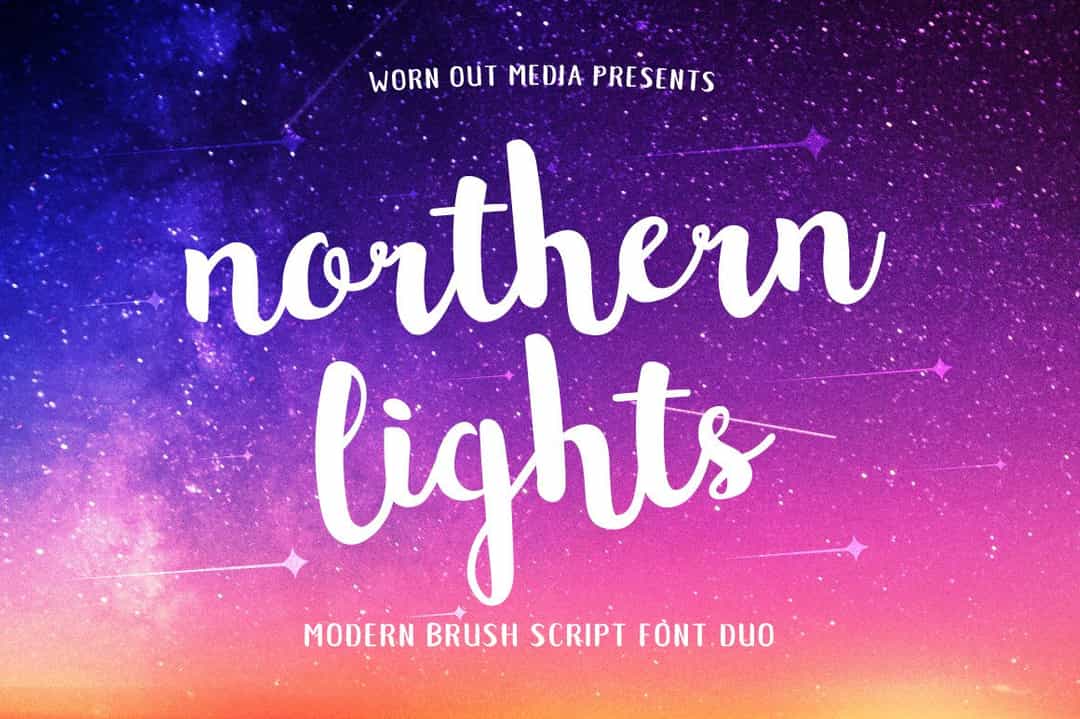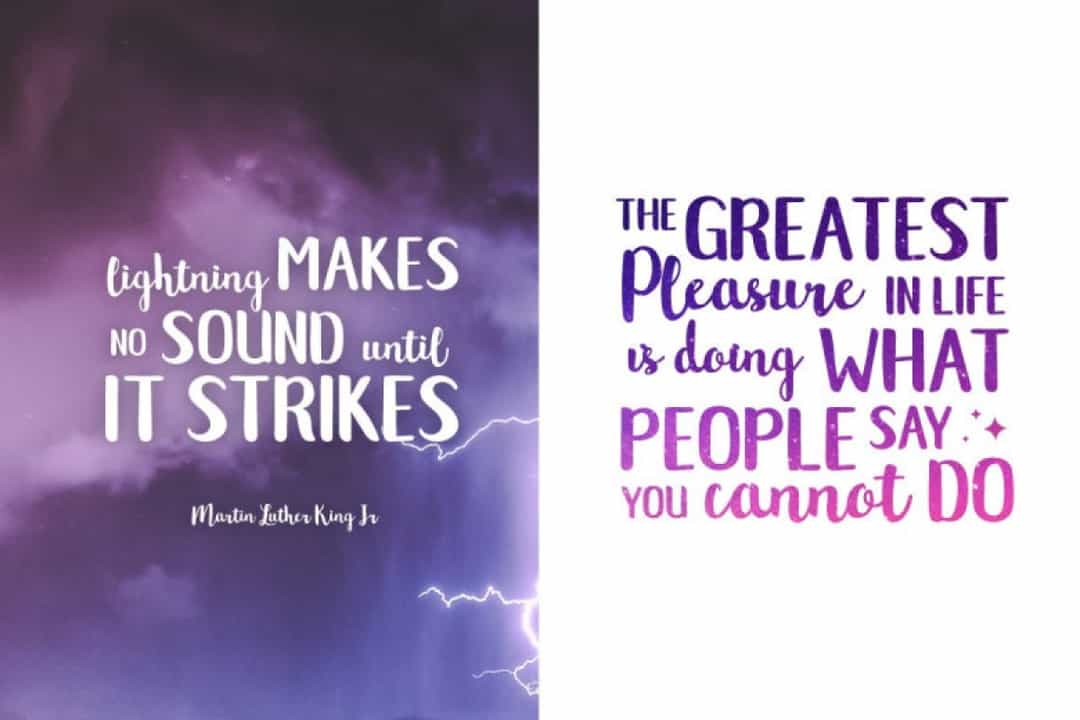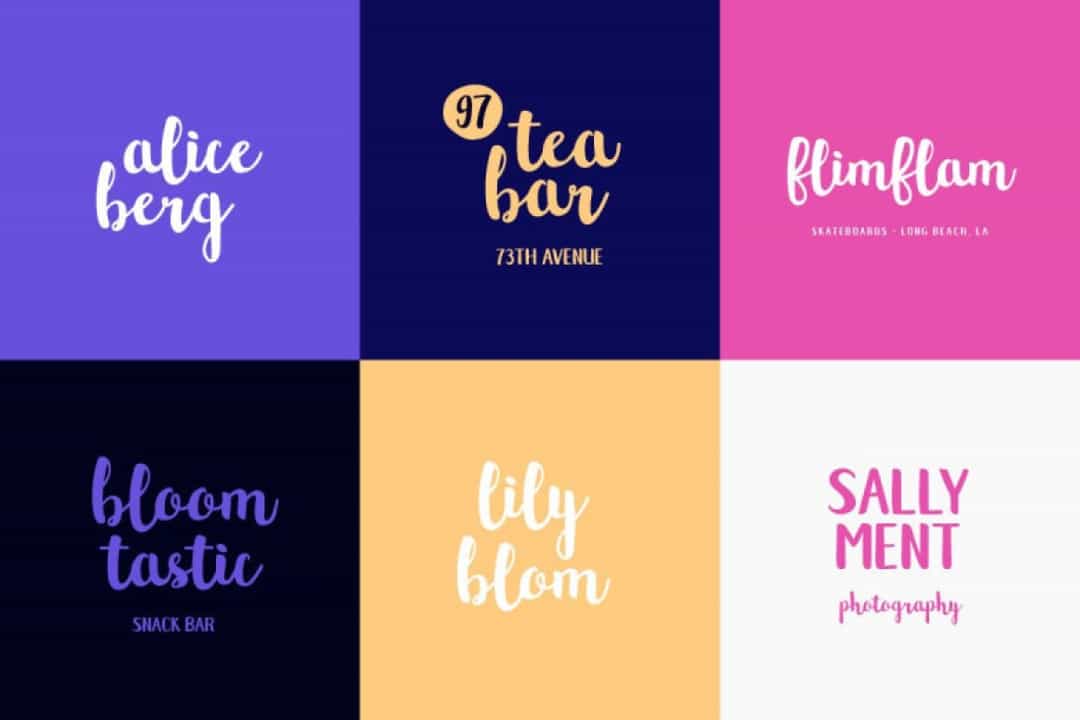
About the Northern Lights by Mats-Peter Forss of Finland. He designed this handmade brush font as part of his creative experiment, complete with its own little tale: Recently, I had the courage and created my first font Currently, It is my hazard to design a font Currently, I dared to design my first font After going to the local crafts store and buying some handwriting pencils for practicing, two days later I realized the best brush script style to convert to font.